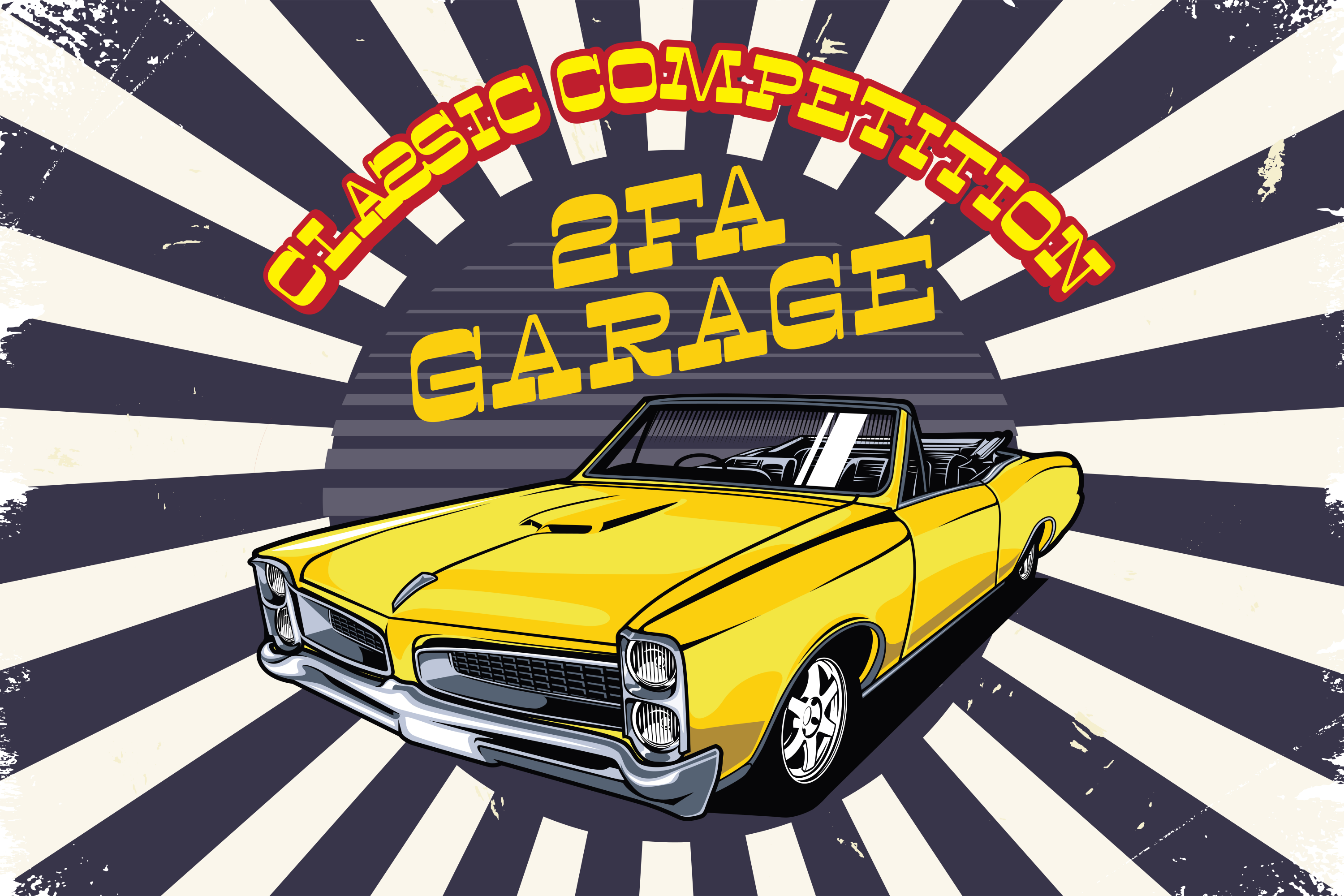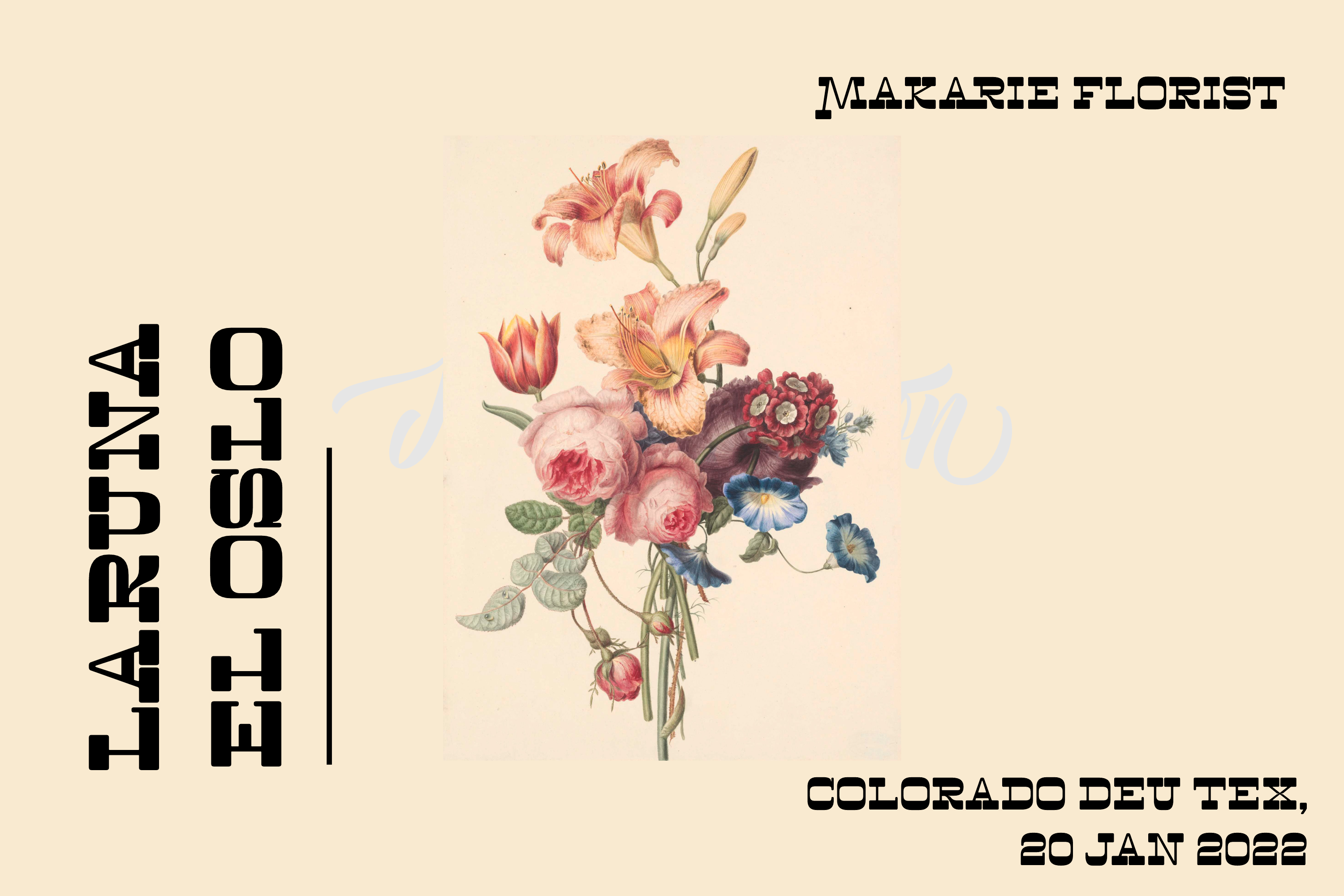
Rise Font is a strong display font with reverse contrast so it grabs a lot of attention in the crowd.
Riseย will be very suitable for marketing design needs such as posters, flyers, advertisements, labels, book covers, film titles and various design needs with retro vintage style.